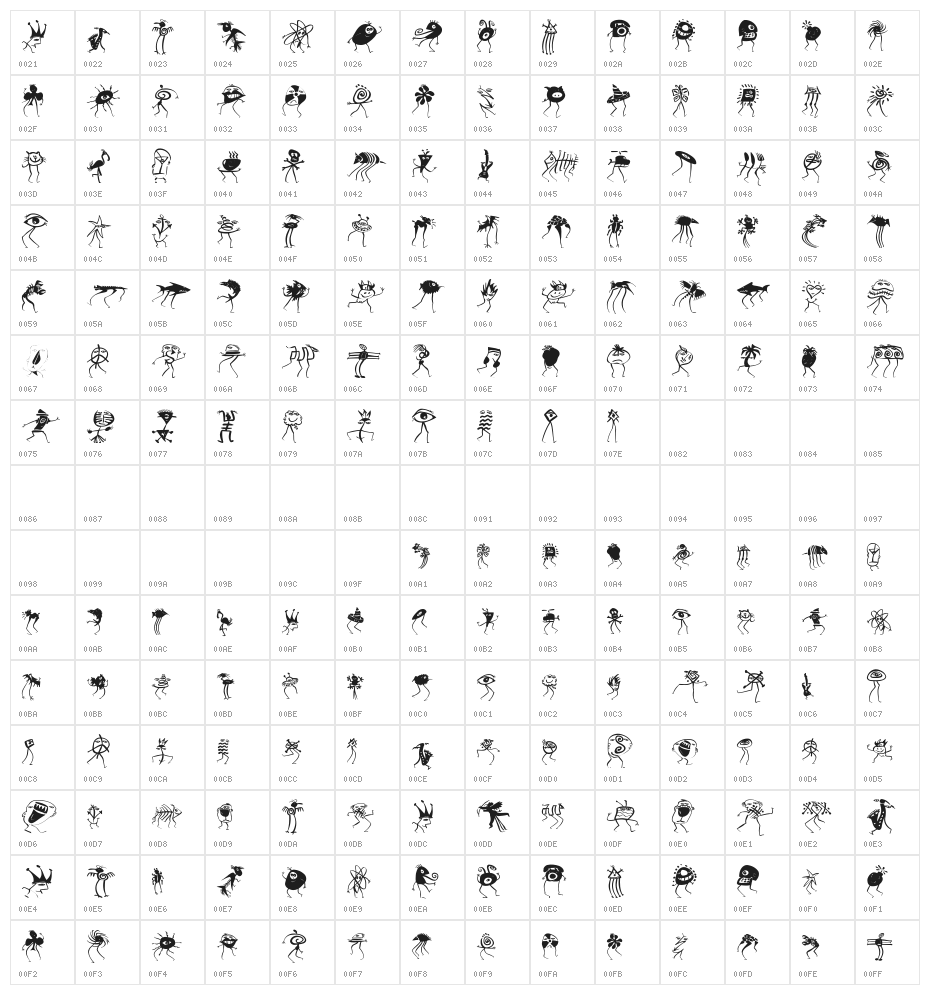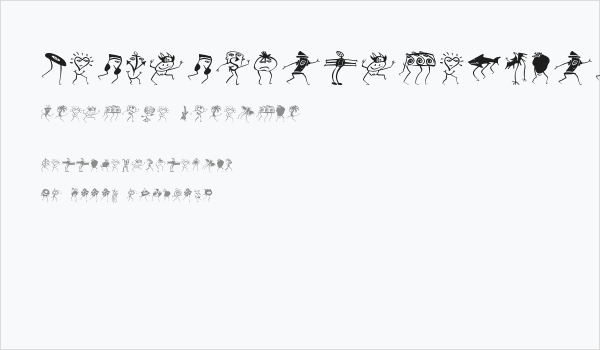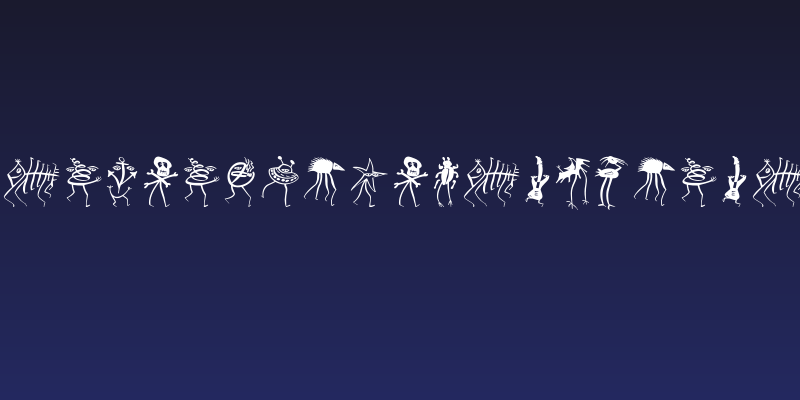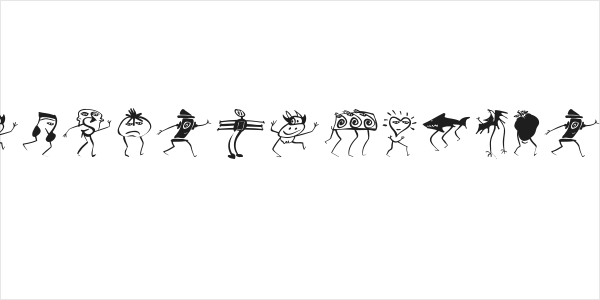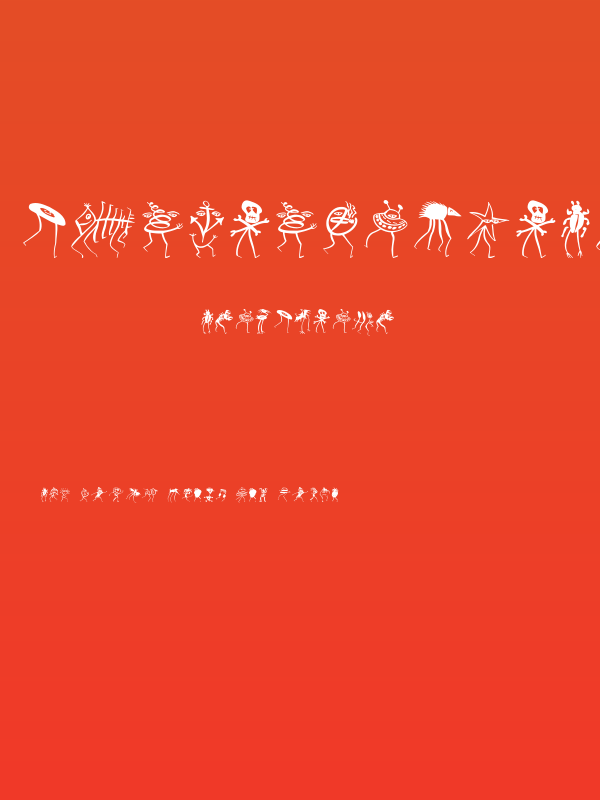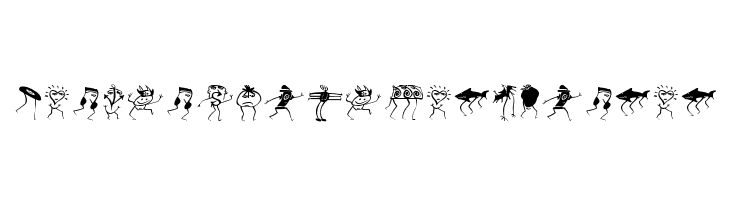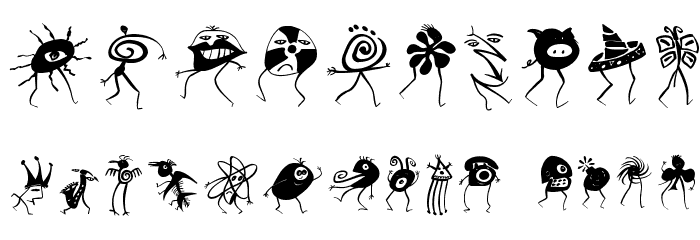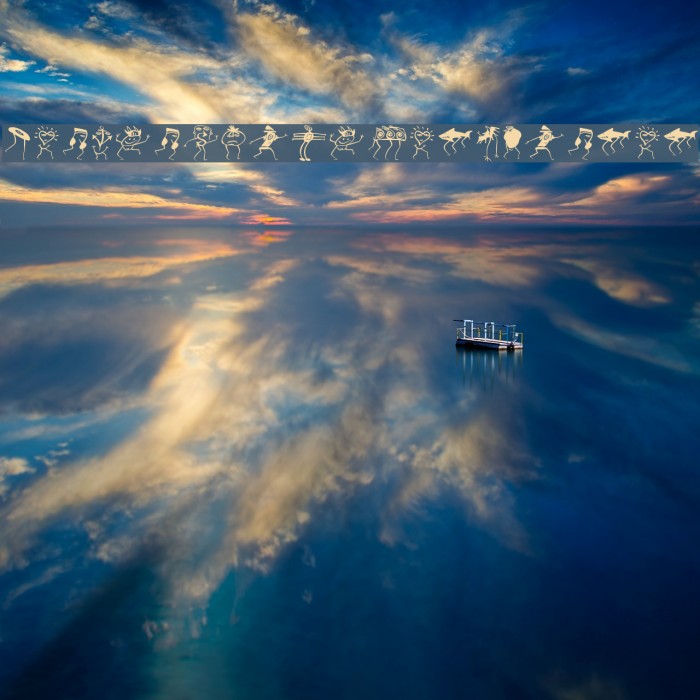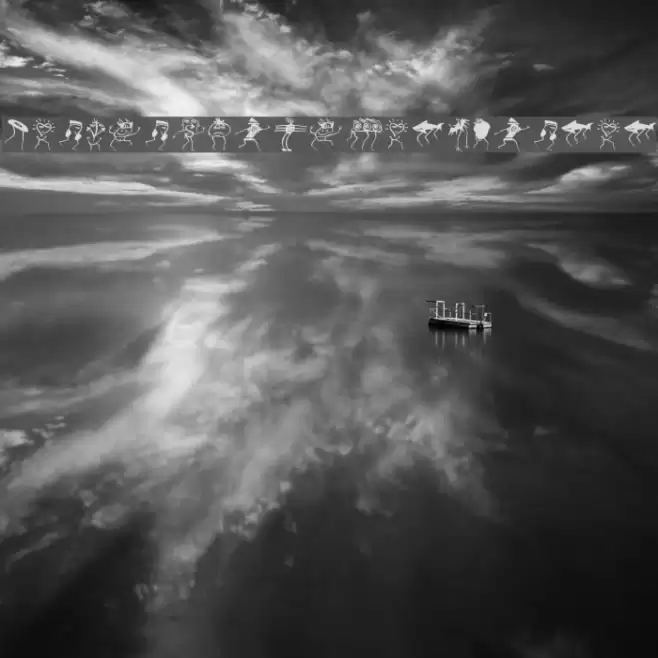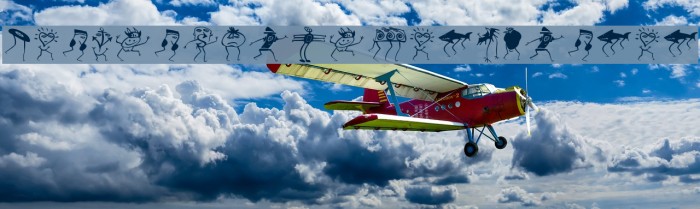
GenManipulatedRounded Font
GenManipulatedRounded Description
A highly decorative and playful font composed of abstract, whimsical, and surreal character illustrations, each glyph resembling a unique, hand-drawn creature or figure rather than traditional letterforms.
| Overall Style | Decorative, Whimsical, Abstract |
| Use Case | Logos, Posters, Art projects, Titles |
| Proposed Projects | Children's books, creative posters, album covers, party invitations, art projects, branding for playful or avant-garde products. |